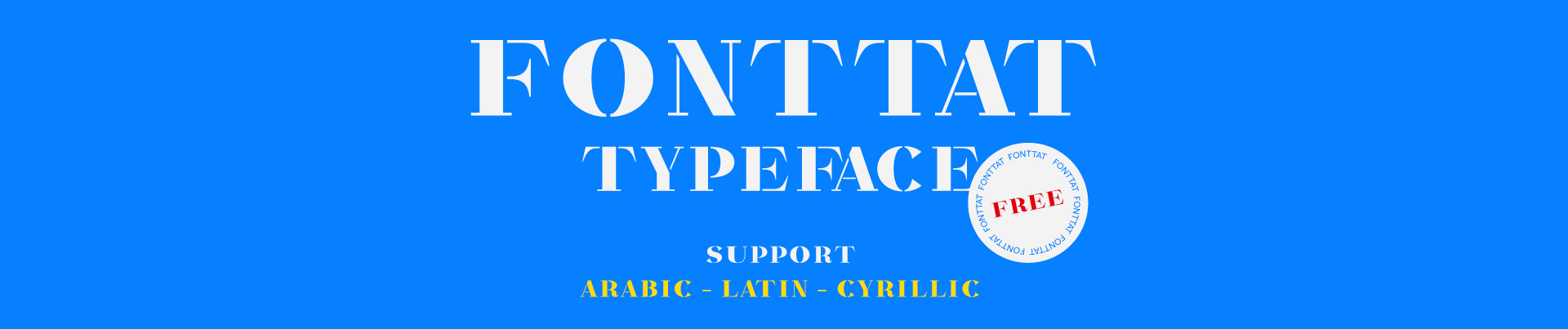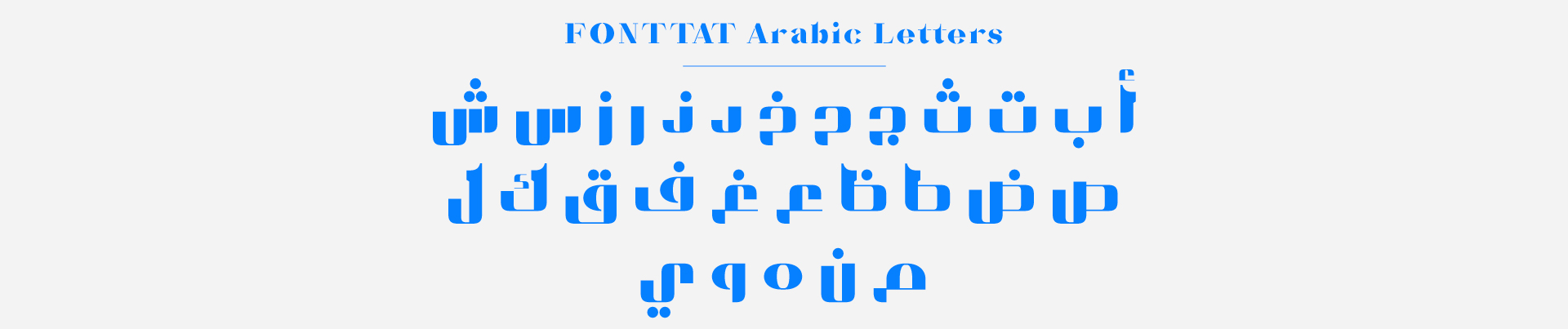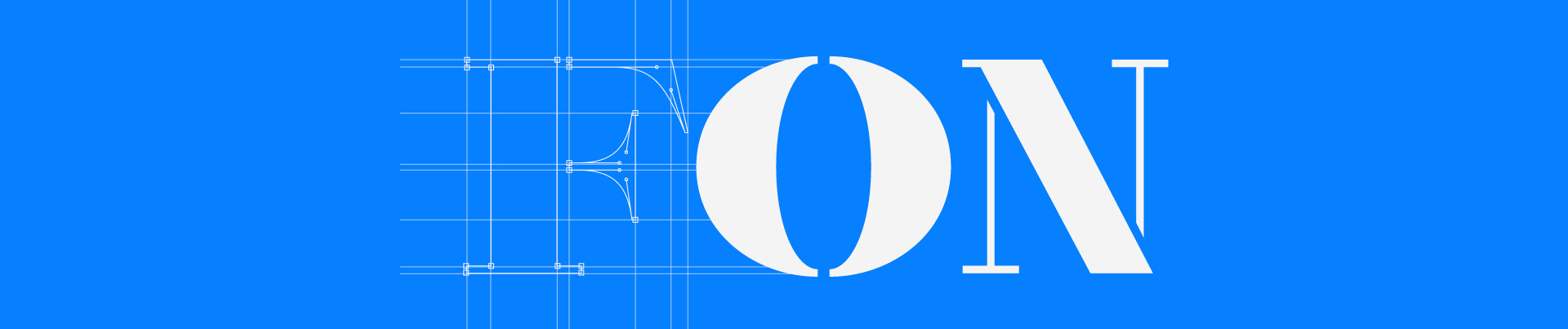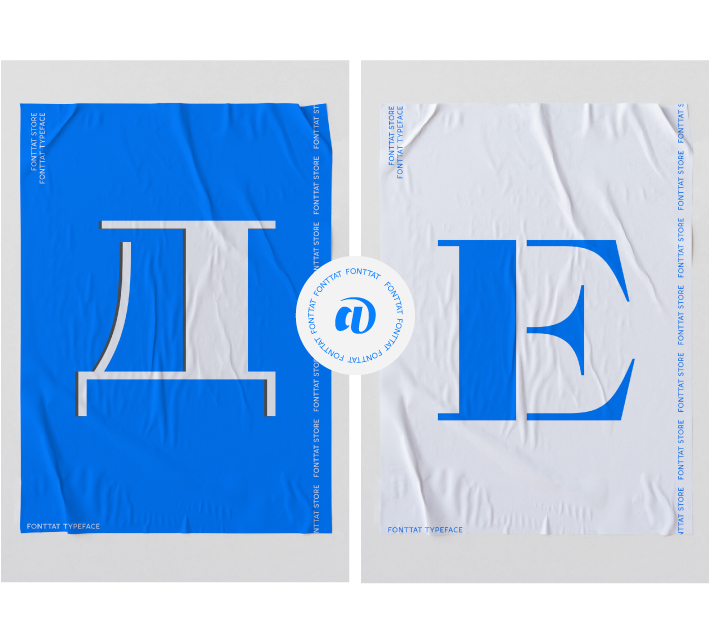
About Fontatt Font
Introduction:
This font was designed for Fonttat Store, the first Arab store for fonts that aims to protect the type designers’ intellectual property and facilitate buying and selling fonts in the Arab World.
Weights and Supported Languages:
Fonttat Font consists of 1 weight and supports Arabic, English, and Cyrillic.
Fonttat is used in headlines, social media posts, and visual identities.